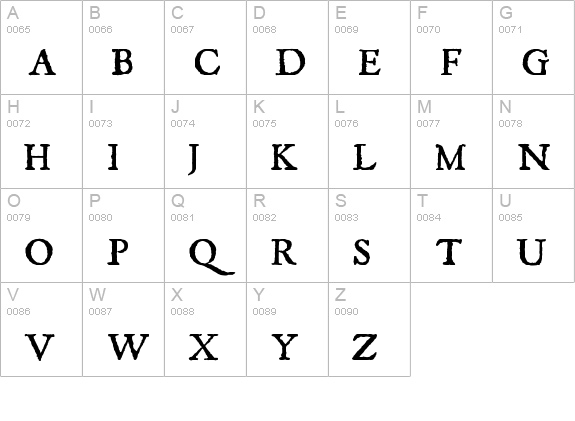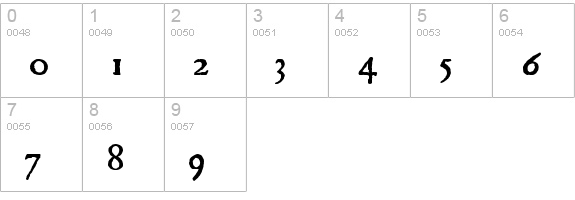
Roman Antique font is a timeless typeface inspired by the classical Roman inscriptions found in ancient architecture. Its elegant serifs and clean lines exude a sense of sophistication and refinement, making it perfect for conveying a sense of history and tradition in your designs. The Roman Antique font is versatile and can be used for a wide range of projects, from branding to editorial design. Best of all, Roman Antique font is available for free download at FontsMarket.com. This means you can easily add this beautiful font to your collection without any cost, making it a valuable resource for designers and creatives looking to elevate their work with a touch of classic elegance. Don't miss out on the opportunity to enhance your projects with the timeless beauty of Roman Antique font, now available for free at FontsMarket.com.